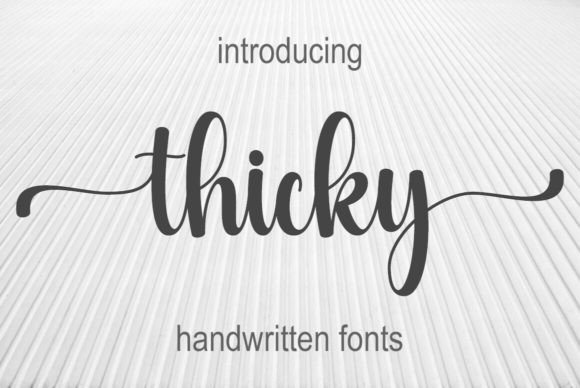
Are you ready to embark on a typographic journey like no other? Dive into the world of Thicky Font, a script font family that's more than just letters on a screen. It's an invitation to let your creativity flow and leave a lasting impression on your designs.
Thicky Font is the brainchild of Hardiboy Design, a renowned name in the world of typography. With painstaking attention to detail and an artistic flair, they've crafted a font that's not just visually appealing but also versatile and captivating. Thicky Font is the perfect companion for your creative projects, whether you're designing logos, branding materials, posters, invitations, or social media graphics.
Fall head over heels in love with Thicky Font's incredibly distinct and timeless style. Its delicate, elegant, and flowing handwritten strokes will add a touch of charm and sophistication to any project. It's a font that speaks volumes, conveying messages with eloquence and grace.
Unleash your imagination and let Thicky Font take you to new heights of creativity. Its versatility knows no bounds, allowing you to experiment with different design styles and themes. From elegant wedding invitations to quirky social media posts, Thicky Font adapts effortlessly, adding a unique touch to every project.
Thicky Font is more than just a font; it's an experience. It's a chance to express yourself creatively and leave a lasting impression on your audience. With its PUA encoding, you can effortlessly access all the glyphs and swashes, giving you the freedom to create stunning designs with ease.
Don't settle for ordinary fonts that blend into the background. Choose Thicky Font, the font that stands out, captivates, and leaves a lasting impression. Let your creativity shine and embark on a typographic adventure like no other.